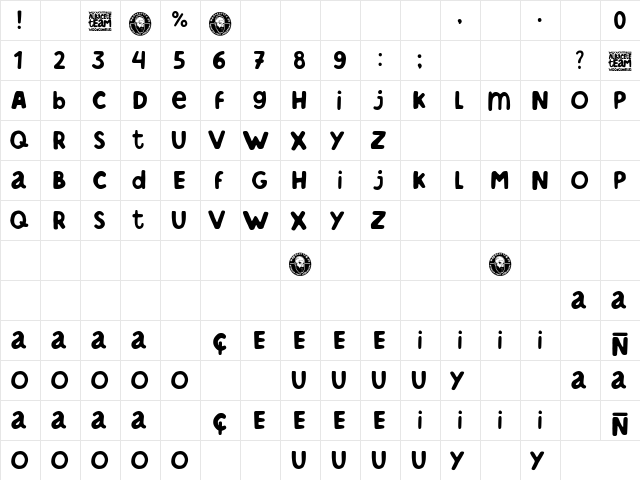
Albacete team Regular
| Designer | Woodcutter Manero |
Design Context for Albacete team Typeface
Albacete team is a composed and adaptable typeface that performs quietly and consistently across a wide range of design contexts.